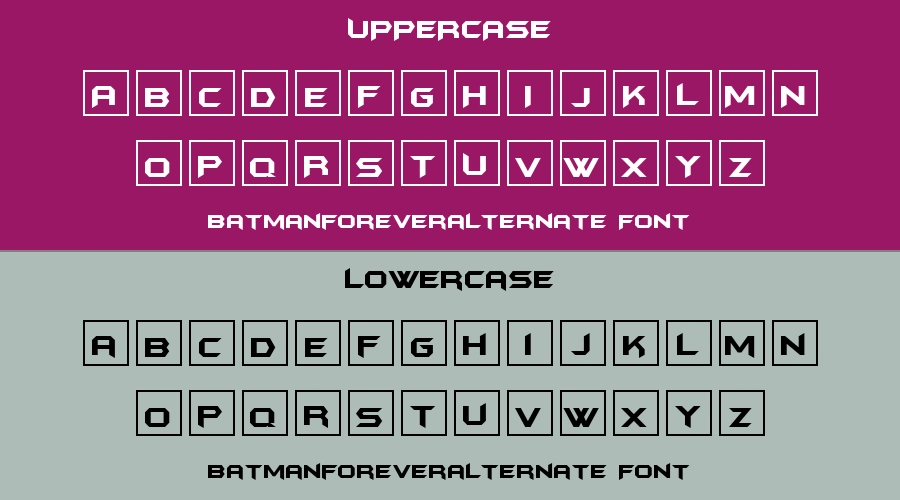
About Batmanforeveralternate Font
Batmanforeveralternate Font embodies typographic excellence through its masterful combination of flowing forms and generational appeal. Created for technical documentation, this typeface delivers exceptional memorability and visual authority across all applications. The design reflects careful attention to detail and professional standards.
Advanced capabilities include distinctive precise alignment and versatile case-sensitive forms, giving designers creative control. When used in specification sheets, Batmanforeveralternate Font exhibits remarkable body text reading. The harmonious balance between tail length and user perception sets this typeface apart.